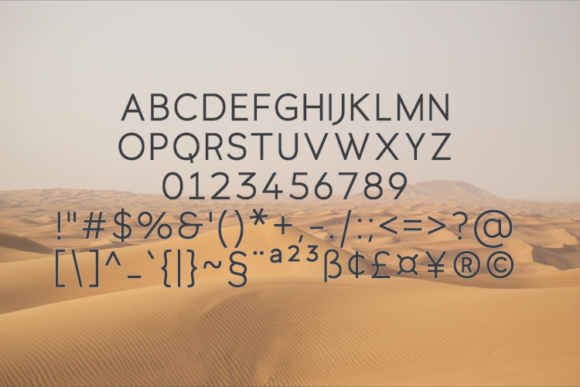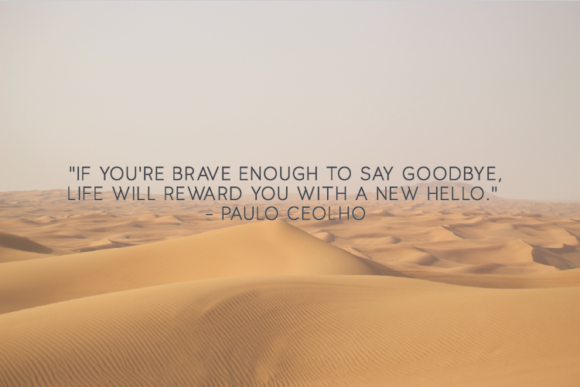
Discover the Versatility of Altherpo Font: Elevate Your Designs with a Simple yet Impactful Sans Serif Font
In the world of typography, fonts play a crucial role in conveying messages, evoking emotions, and creating visual identities. For designers and crafters, finding the right font can make all the difference in bringing their creative ideas to life. This is where Altherpo Font comes into play – a simple, neat, and highly versatile sans serif font that can effortlessly elevate your designs and make them stand out.
What is Altherpo Font?
Altherpo Font is a modern sans serif font designed to offer a clean and minimalist aesthetic. Its simplicity is its greatest strength, allowing it to seamlessly integrate into a wide range of projects. Whether you’re working on a branding campaign, a website design, a crafting project, or any other creative endeavor, Altherpo Font is an excellent choice.
Key Features of Altherpo Font
• Simplicity: The clean lines and uncomplicated design of Altherpo Font make it easy to read and versatile for various applications.
• Neat Appearance: Its neatness ensures that your designs look professional and polished, which is essential for creating a good impression.
• Sans Serif: The sans serif design gives Altherpo Font a contemporary look that fits well with modern design trends.
• Versatility: It can be used in a wide array of projects, from digital media to print materials, making it a valuable addition to any designer’s toolkit.
Why Choose Altherpo Font?
Choosing Altherpo Font for your projects comes with several benefits:
• Universal Compatibility: Its simple and clear design makes it compatible with an incredibly large set of projects. Whether you’re designing a website, a logo, a brochure, or a crafting pattern, Altherpo Font can be easily matched and integrated.
• Enhanced Readability: The font’s clarity and simplicity ensure high readability, which is crucial for digital and print materials.
• Creative Flexibility: Altherpo Font’s neutral appearance gives you the creative freedom to use it in various contexts without worrying about it clashing with other design elements.
• Professional Look: It lends a professional and modern look to your designs, helping you to create a strong visual impact.
Font Name Altherpo Font
Author Nan Design
Altherpo Font is more than just a simple sans serif font – it’s a powerful tool for designers and crafters looking to add a professional and modern touch to their projects. Its versatility, readability, and neat appearance make it an excellent choice for a wide range of applications. By incorporating Altherpo Font into your creative process, you can ensure that your designs not only stand out but also communicate your message effectively. So, add Altherpo Font to your toolkit today and discover how it can elevate your creative ideas to new heights.